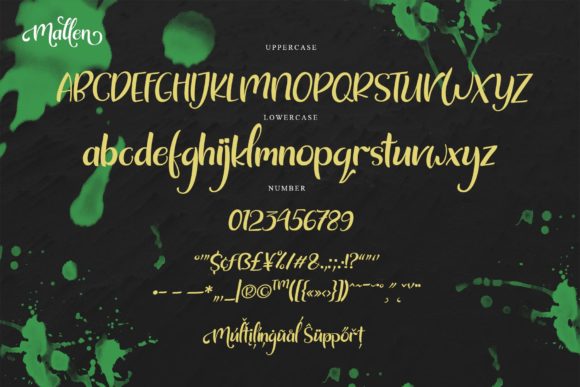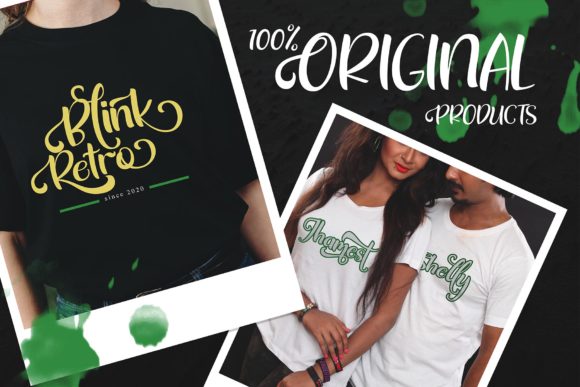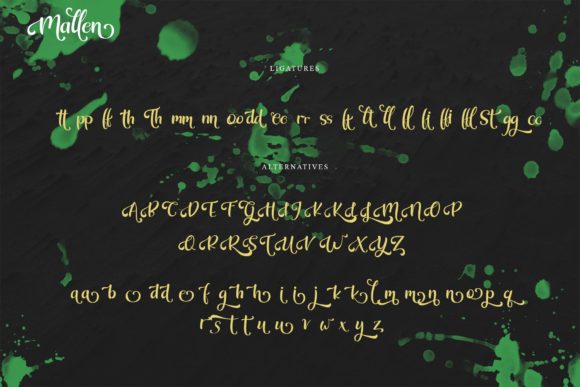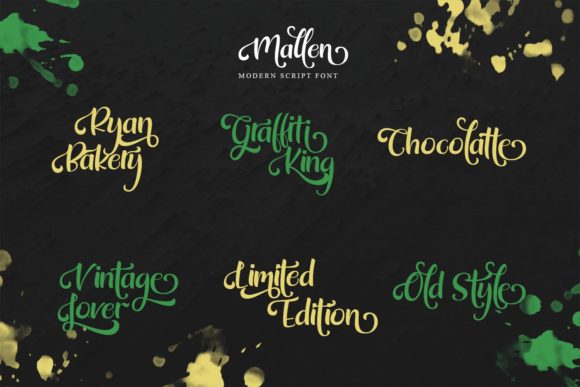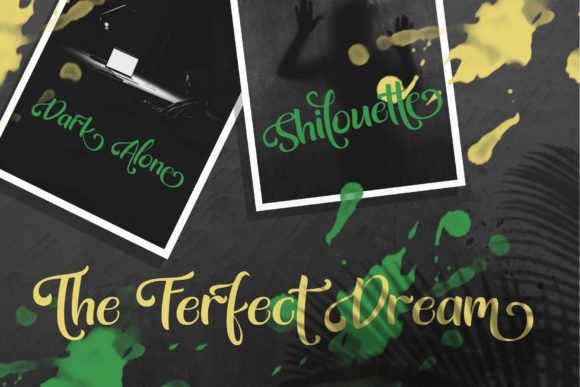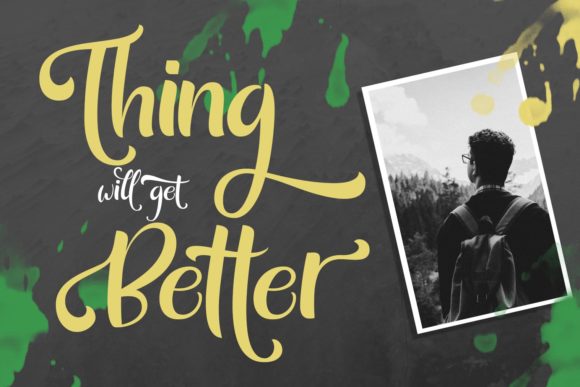
Introduction to Mallen Font
Mallen is a beautiful handwritten font.
It has a flowing style that will cheer up your crafting projects It is ideal for printed quotes, wedding invitations, social media posts, product packaging, and more.
Key Features of Mallen Font
Why Choose Mallen Font?
Mallen Font offers exceptional quality and versatility, making it a valuable addition to your design toolkit. Whether you’re creating for personal projects or commercial use, Mallen Font delivers professional results.